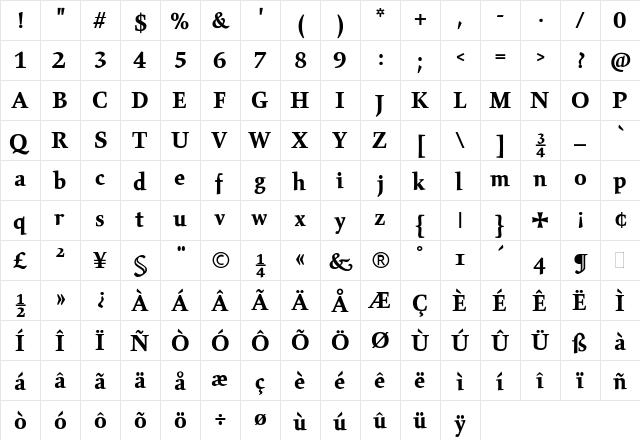
Gilgamesh Bold
Design Context for Gilgamesh Typeface
Gilgamesh takes a measured approach to typography — its balanced proportions and neutral character make it a reliable workhorse for both digital and print work. Its bold stroke weight gives it real presence on the page.
Pro Tip: Use Gilgamesh in both headline and body roles to test its range before committing to a single application.